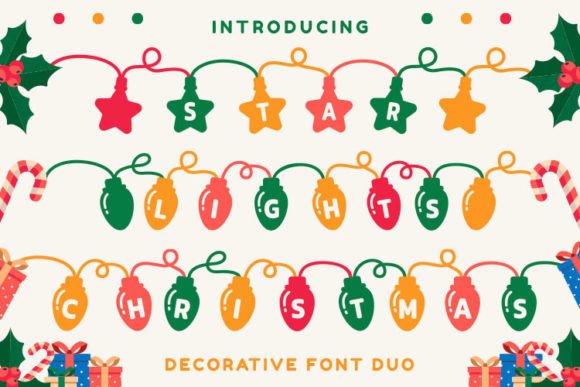
Introducing Star Lights Christmas Font, the perfect decorative display font for all your Christmas needs! Created by the talented designers at Hoperative Design, this font is inspired by the twinkling stars and shining lights of the holiday season, making it the perfect addition to your festive designs.
This beautiful and unique font is perfect for adding a touch of magic to your Christmas designs. With its playful and whimsical style, it's sure to capture the attention of your audience and bring a smile to their faces. Use it to create eye-catching holiday t-shirts, stickers, and cover books that will stand out from the crowd.
Not only is Star Lights Christmas Font visually stunning, but it's also highly versatile. Its decorative style makes it perfect for creating children's books, social media posts, and so much more. The possibilities are endless with this font!
What makes Star Lights Christmas Font truly special is its ability to evoke a sense of warmth and joy. Its playful and cheerful style is perfect for capturing the festive spirit of the holiday season and spreading that joy to your audience. Whether you're designing for personal or commercial use, this font is sure to bring your Christmas designs to life.